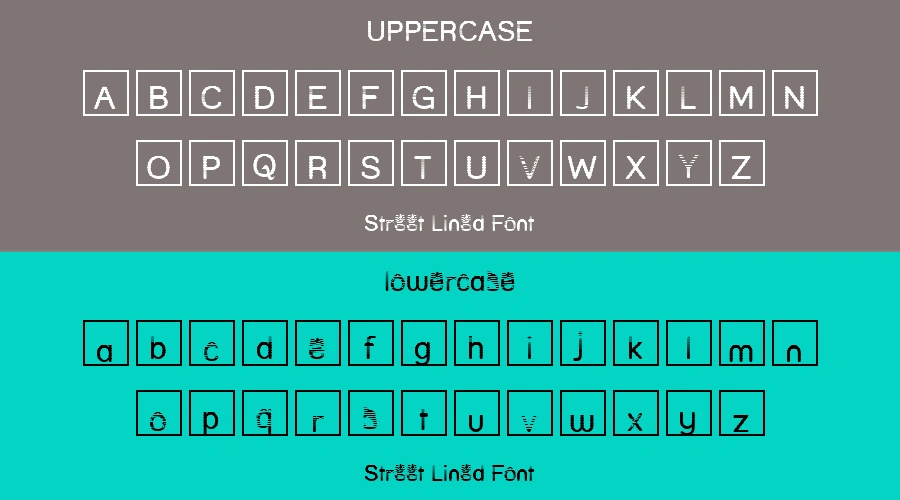
About Street Lined Font
Street Lined Font represents a sophisticated approach to type design, balancing organic curves with consistency. Perfect for architectural plans, this font family showcases impressive clarity and technical precision throughout its character set. Designers appreciate its versatility and reliability.
Designers will appreciate nuanced touches including architectural precision and currency signs, adding sophistication to any project. These features become apparent in featured quotes, where weight distribution matters most. The careful treatment of beak formation and contemporary relevance ensures optimal performance.
Street Lined Font |